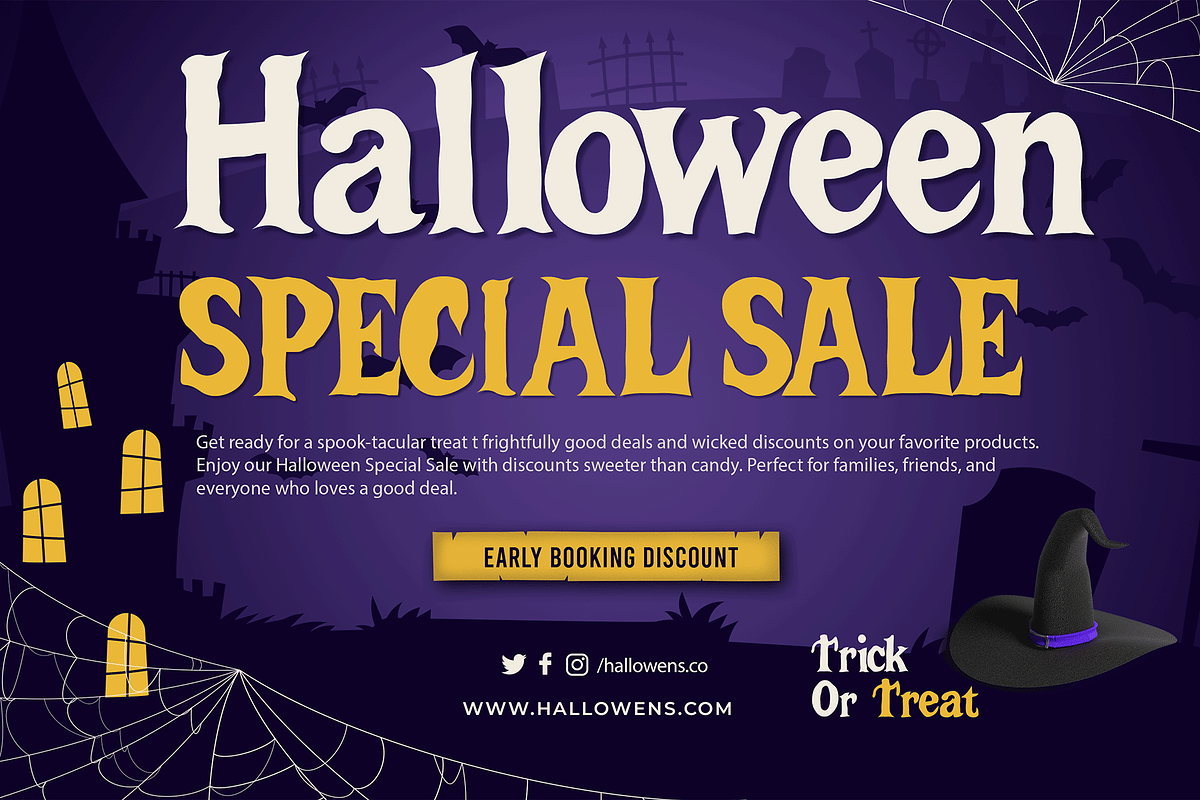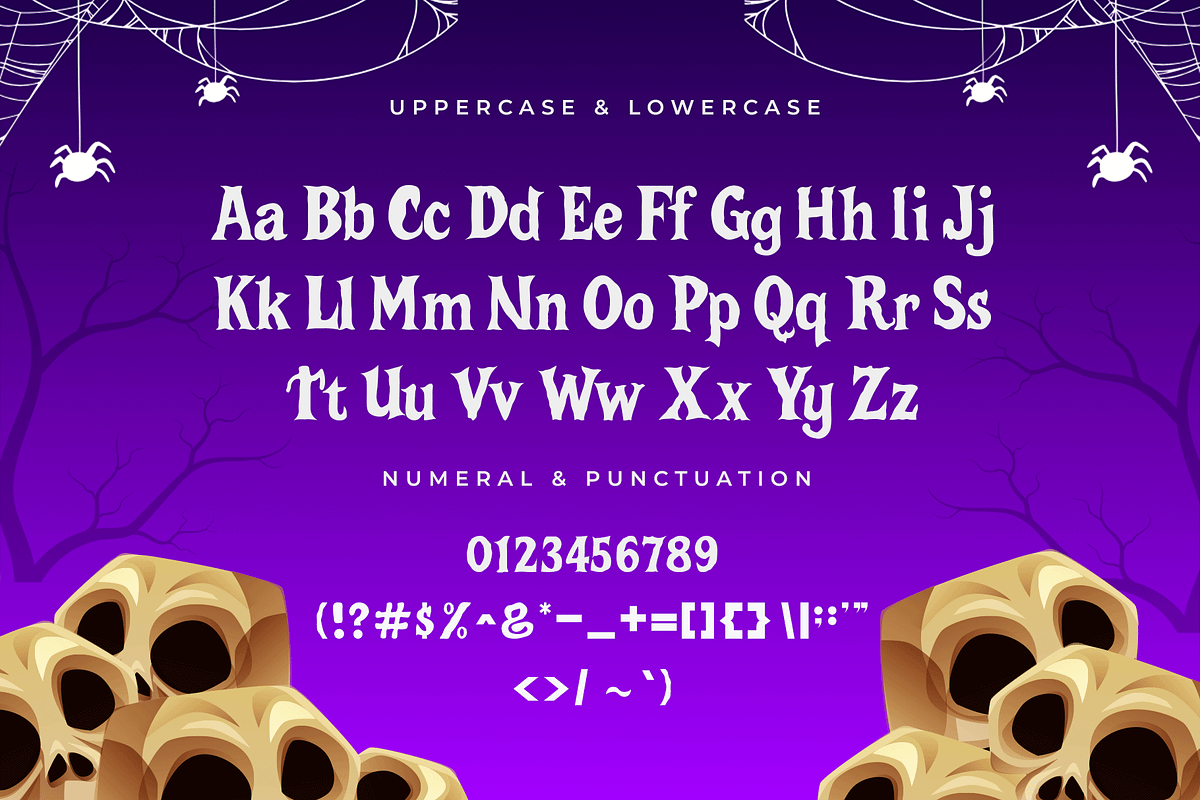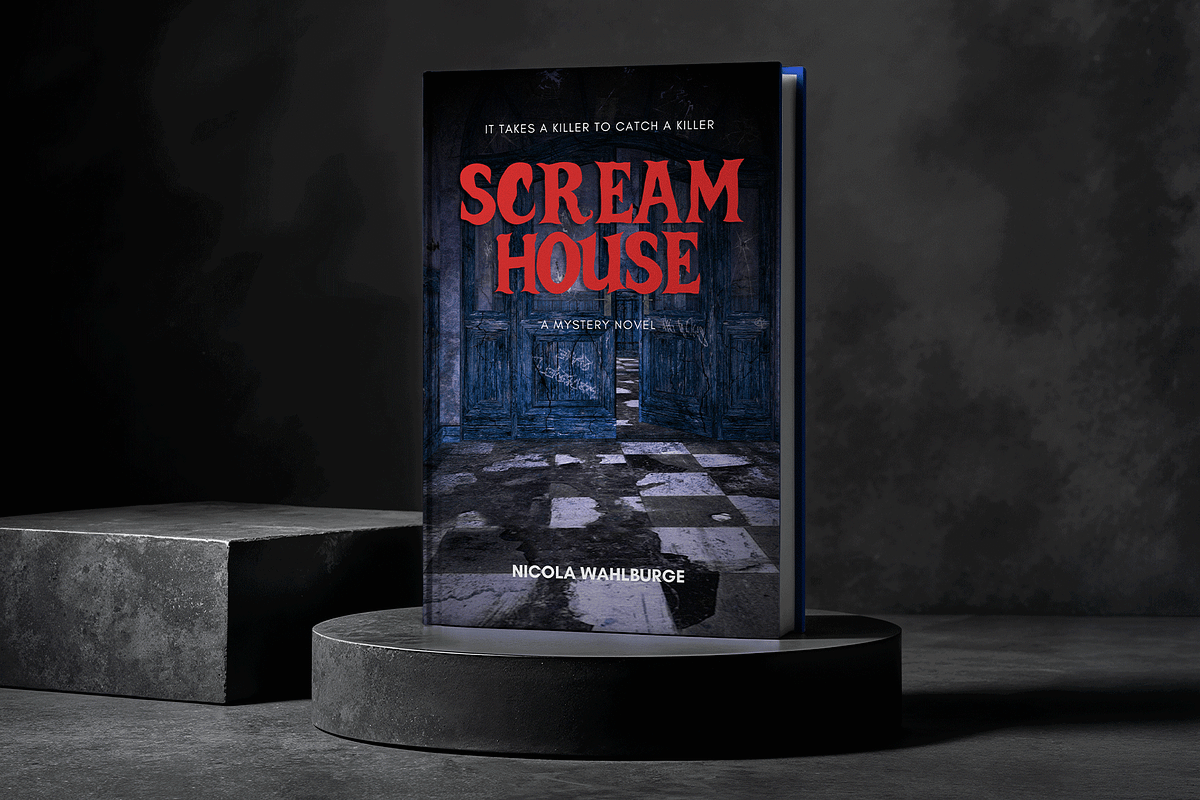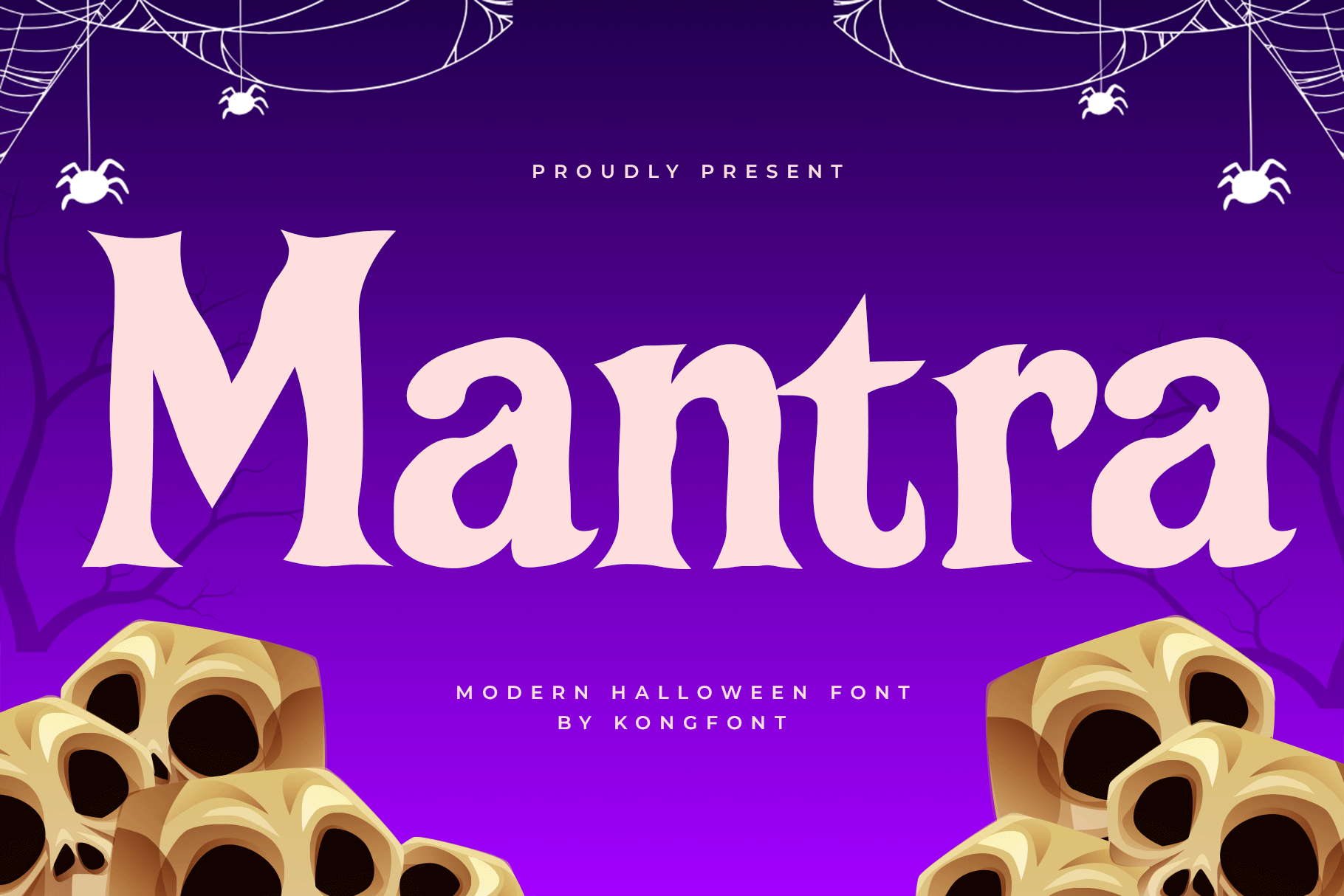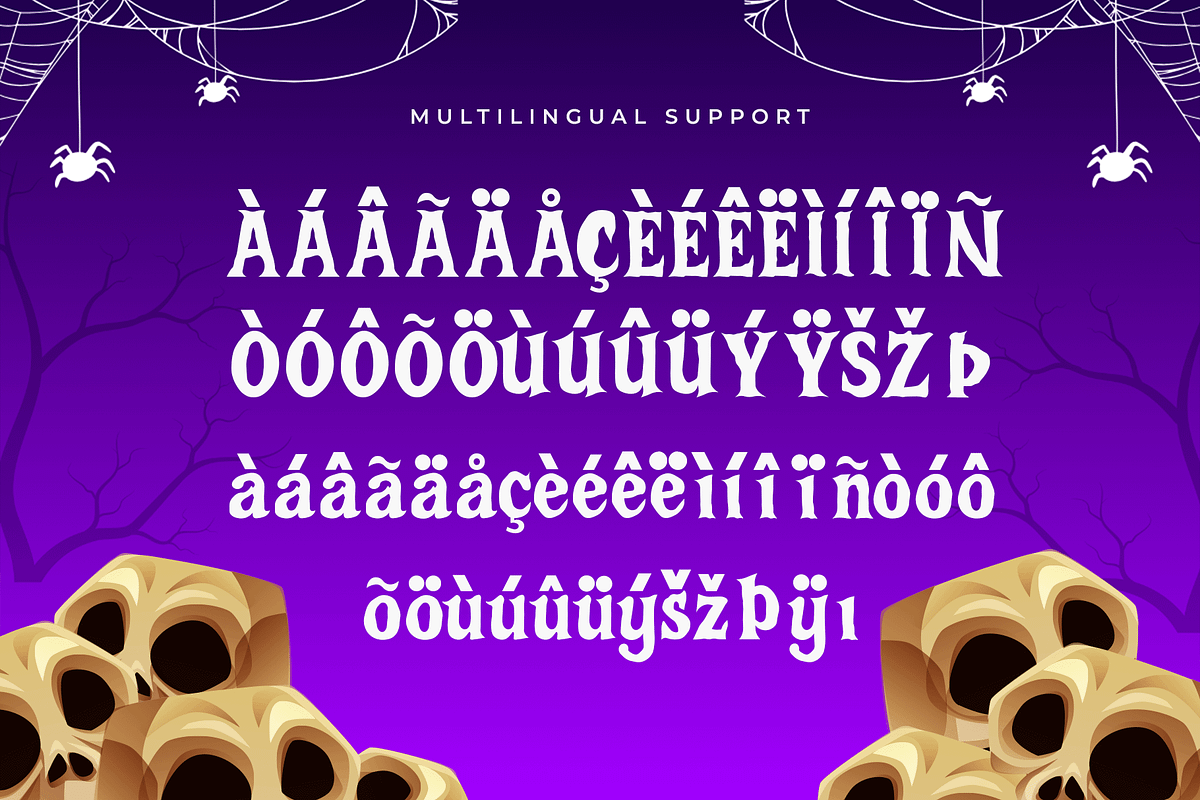
Mantra – Modern Halloween Font
Introducing Mantra, a modern Halloween font that embodies mystery, darkness, and haunting elegance. With its sharp edges and eerie curves, this typeface is crafted to channel a chilling atmosphere perfect for spooky-themed projects.
Ideal for Halloween party invitations, horror movie titles, eerie posters, merchandise, and seasonal branding, Mantra adds a sinister yet stylish edge to any design. Its bold presence and haunting aesthetic make it a standout choice for designers seeking to capture the spirit of the supernatural.
The font includes uppercase, lowercase, numerals, punctuation, and multilingual support, ensuring versatility for both print and digital use. Whether you’re crafting eerie headlines or bone-chilling graphics, Mantra delivers a ghostly charm that lingers.